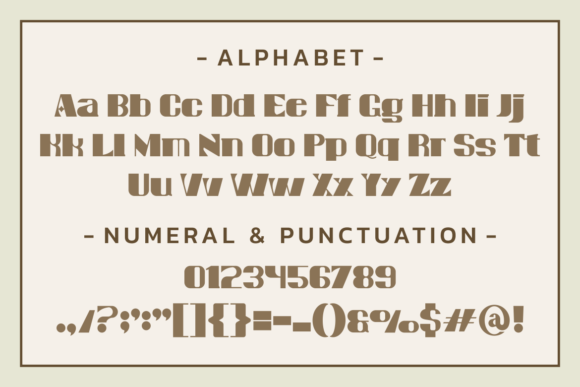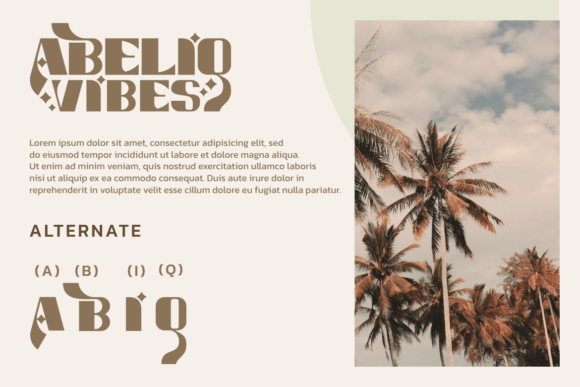
Introducing Abeliq Vibes Font: Elevate Your Designs with Bold Authenticity
In the world of typography, a font can make or break a design. For designers and crafters looking to add a touch of bold authenticity to their projects, Abeliq Vibes Font is an exceptional choice. This stunning display font is perfect for a wide range of applications, from logos and t-shirt printing to product packaging and more. In this article, we’ll dive into the features and benefits of Abeliq Vibes Font, and explore how it can elevate your designs to the next level.
What is Abeliq Vibes Font?
Abeliq Vibes is a bold and authentic display font designed to make a statement. Its unique style and charismatic presence make it an ideal choice for designers who want to add a touch of personality to their work. The font’s versatility allows it to be used in various contexts, from digital designs to print materials.
Key Features of Abeliq Vibes Font
- Bold and Authentic: Abeliq Vibes Font boasts a bold and authentic style that demands attention.
- Display Font: Designed specifically for display purposes, this font is perfect for headlines, titles, and short text passages.
- Versatile: Suitable for a wide range of applications, including logos, t-shirt printing, product packaging, and more.
- Easy to Read: Despite its bold style, Abeliq Vibes Font remains easy to read, making it perfect for short text passages.
Use Cases for Abeliq Vibes Font
Abeliq Vibes Font is an incredibly versatile font that can be used in various design projects. Here are some use cases to get you started:
- Logo Design: Create a bold and memorable logo for your brand with Abeliq Vibes Font.
- T-Shirt Printing: Add a touch of personality to your t-shirt designs with this eye-catching font.
- Product Packaging: Make your product packaging stand out with Abeliq Vibes Font.
- Posters and Flyers: Use Abeliq Vibes Font to create bold and attention-grabbing posters and flyers.
- Social Media Graphics: Add a touch of bold authenticity to your social media graphics with this stunning font.
Benefits of Using Abeliq Vibes Font
So, why choose Abeliq Vibes Font for your design projects? Here are some benefits to consider:
- Unique Style: Abeliq Vibes Font offers a unique style that will set your designs apart from the crowd.
- Time-Saving: With Abeliq Vibes Font, you can create professional-looking designs in no time.
- Customizable: Experiment with different colors, sizes, and styles to make Abeliq Vibes Font your own.
- High-Quality: Abeliq Vibes Font is designed to deliver high-quality results, ensuring your designs look professional and polished.
Tips for Using Abeliq Vibes Font
To get the most out of Abeliq Vibes Font, here are some tips to keep in mind:
- Use it Sparingly: Abeliq Vibes Font is bold and attention-grabbing, so use it sparingly to avoid overwhelming your design.
- Experiment with Colors: Try out different colors to find the perfect match for your brand or design.
- Pair it with Other Fonts: Combine Abeliq Vibes Font with other fonts to create a unique and visually appealing design.
Abeliq Vibes Font is an exceptional choice for designers and crafters looking to add a touch of bold authenticity to their projects. With its unique style, versatility, and ease of use, this font is perfect for a wide range of applications. By incorporating Abeliq Vibes Font into your design workflow, you’ll be able to create stunning and professional-looking designs that demand attention.